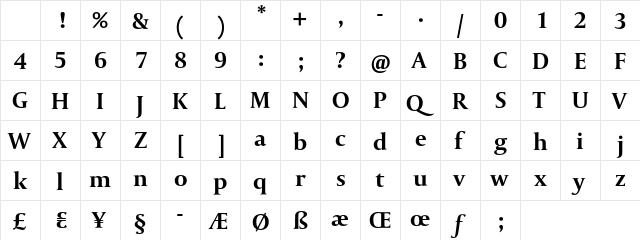
Capitolium BoldRoman
Design Context for Capitolium
Capitolium is a composed and adaptable typeface that performs quietly and consistently across a wide range of design contexts. Its bold stroke weight gives it real presence on the page.